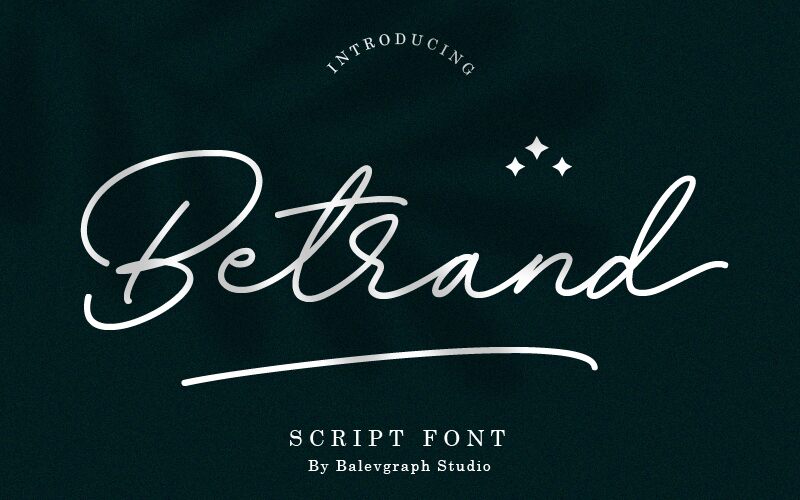
Betrand, designed by Balev, is a light-weight, handwritten font that exudes elegance and sophistication.
With its thin lettering and graceful script style, this font is perfect for creating stunning wedding invitations that will leave a lasting impression on your guests. Capture attention with beautiful stationary art, from personalized notepads to exquisite greeting cards. Take your social media posts to the next level by incorporating Betrand's ravishing style into eye-catching graphics that will truly stand out in the feed.
Let your creativity run wild and explore the endless possibilities with Betrand!